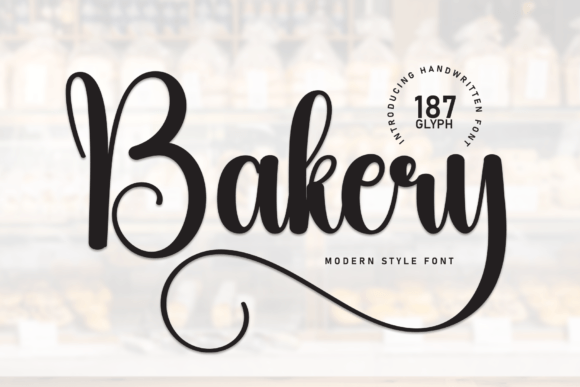
The Sweet Taste of Creativity
Have you ever found yourself scribbling down ideas in a notebook, surrounded by scribbles and sketches, and suddenly, a design concept comes to life? That’s exactly what happened when I stumbled upon the Bakery Font – a sweet and friendly handwritten display font that’s sure to make your designs rise to the occasion.
Bakery Font is the perfect addition to any designer’s toolkit, ideal for writing wedding invitations, cards, or any other design that needs a fun touch. Its cute and playful nature makes it a valuable asset for designers looking to add a personal touch to their projects. With Bakery Font, you can infuse your designs with a sense of warmth and friendliness that’s sure to capture the hearts of your audience.
Bakery Font Key Features
- Unique Characteristics: Bakery Font features a distinctive, hand-drawn design with intricate details and ornaments, perfect for adding a touch of elegance to baked goods packaging and advertising.
Bakery Font Review
As a designer, I’ve had the chance to work with the Bakery Font, and I must say it’s a mixed bag. Let’s dive into what works well and what doesn’t.
- Unique Character: Bakery Font has a distinct, whimsical feel that sets it apart from other fonts. It’s perfect for bakeries, cafes, or any business that wants to stand out.
- Good for Logos: The font’s playful nature makes it suitable for logos, especially those that need a touch of personality.
- Legibility: Despite its cursive nature, Bakery Font is surprisingly legible, even at smaller sizes.
- Not Suitable for Large Text: While the font is legible at smaller sizes, it can become difficult to read when used for large blocks of text.
- Limited Font Variations: The font only comes in a few weights and styles, which might limit its versatility.
- Not Ideal for Body Text: Due to its cursive nature, Bakery Font is not the best choice for body text, as it can be tiresome to read.
The Bakery Font is a charming addition to any design project that requires a touch of whimsy. While it excels in certain areas, its limitations make it less suitable for more extensive use. I’d recommend it for logos, headings, or short phrases, but not for large blocks of text or body copy.
The Bakery Font is ideal for use in baking-related projects, such as:
– Menu boards
– Bakery logos
– Food labels
– Recipe cards